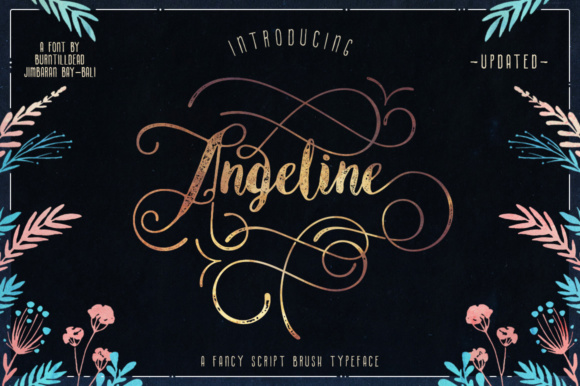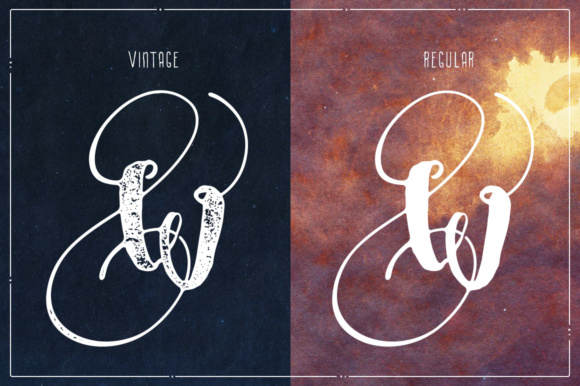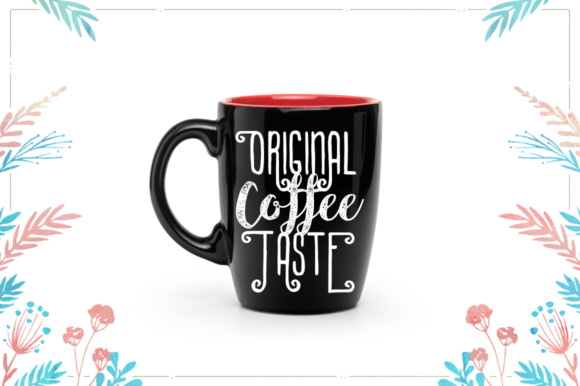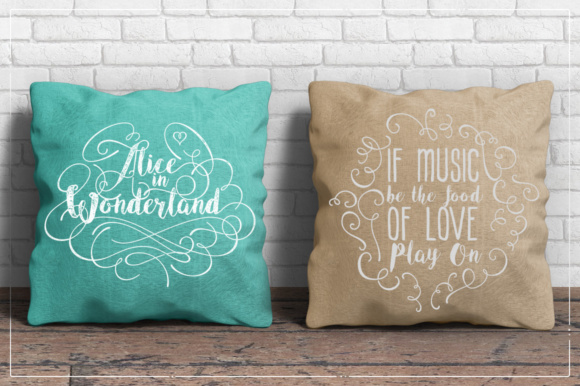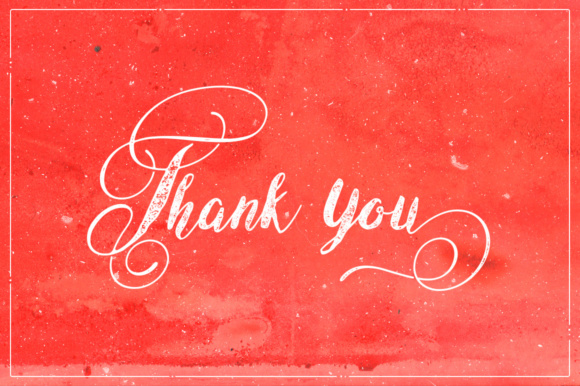
Angeline Font
About Angeline Font
Angeline is a beautiful, swashy script font with tons of sass and style! This font is gorgeous and works well in modern and vintage designs in both print and web.